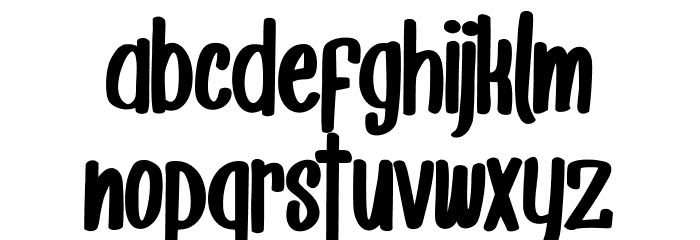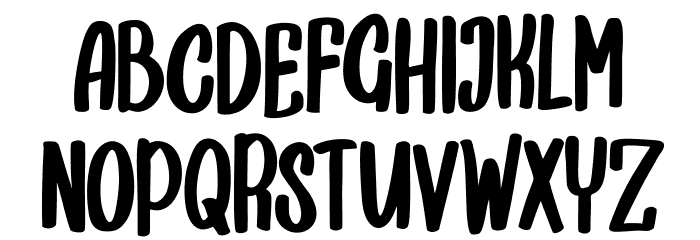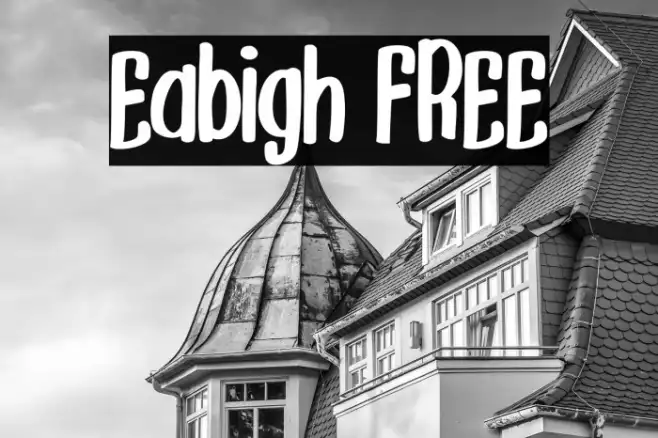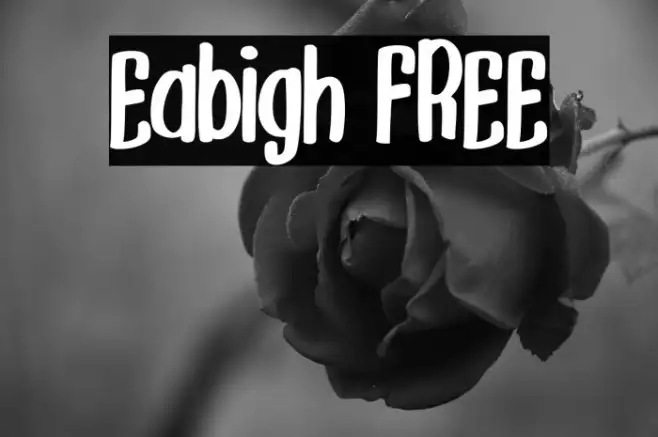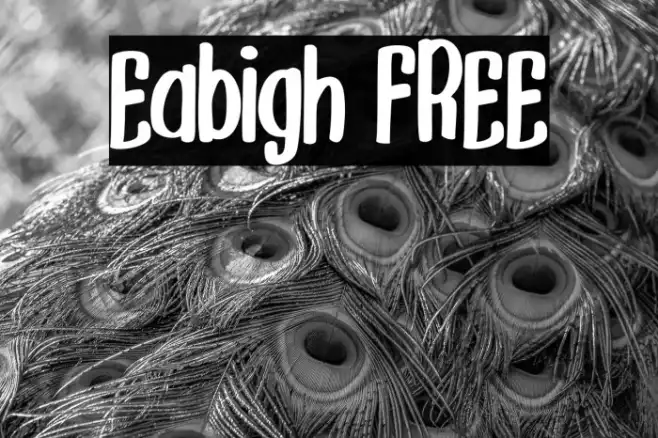
Eabigh FREE Font
This playful and bold font features thick, rounded strokes that give it a friendly and approachable appearance. The characters are slightly condensed, with a consistent stroke width that maintains a uniform look across both uppercase and lowercase letters. The font's whimsical style is accentuated by its smooth curves and lack of sharp edges, making it ideal for projects that require a fun and informal touch. Its legibility is enhanced by the generous spacing between characters, ensuring clarity even at smaller sizes. The font's unique personality makes it suitable for a variety of creative applications.
A playful, bold font with rounded strokes and a friendly appearance.
- Font: Eabigh FREE
- Proposed Projects: Ideal for children's books, playful branding, greeting cards, and social media graphics.
- Character Spacing: Wide
- Overall Style: Playful